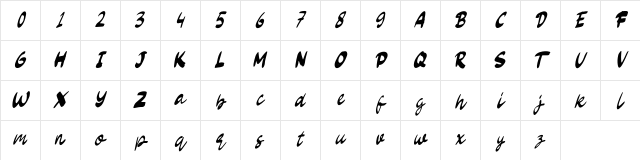
Sweet Escape is a composed and adaptable typeface that performs quietly and consistently across a wide range of design contexts. The slanted form adds forward momentum and visual energy.
Pro Tip: Use Sweet Escape for emphasis, pull quotes, and subheadings where its slanted energy can add rhythm to the layout.